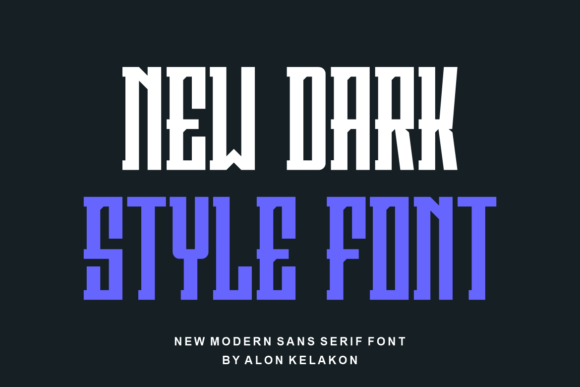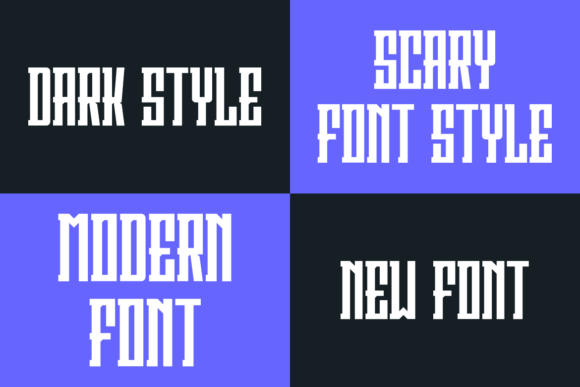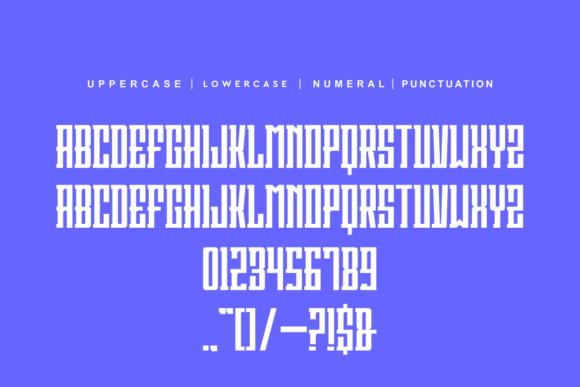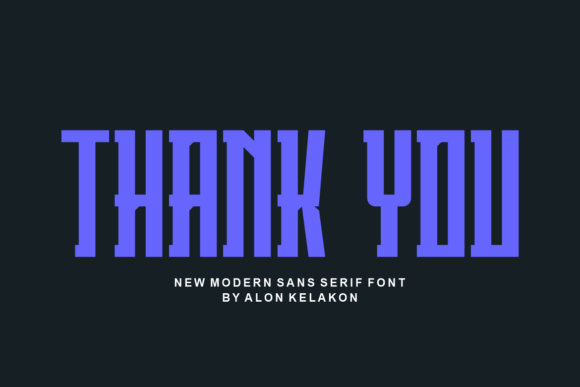
Unleash the Power of Darknes Shapekiner Font: Elevate Your Designs with Bold and Sharp Typography
In the world of design, typography plays a crucial role in conveying messages, expressing emotions, and creating visual identities. A font can make or break a design, and that’s why it’s essential to choose the right one. If you’re looking for a bold and sharp display font that can elevate your creations, look no further than Darknes Shapekiner. In this article, we’ll explore the features, benefits, and uses of Darknes Shapekiner Font, and why it’s a must-have for designers and crafters.
What is Darknes Shapekiner Font?
Darknes Shapekiner is a bold and sharp display font designed to make a statement. Its unique shape and sharp lines make it perfect for headlines, titles, and any other text that needs to grab attention. This font is versatile and can be used for various design projects, from posters and flyers to logos and branding materials.
Key Features of Darknes Shapekiner Font
- Bold and Sharp Design: Darknes Shapekiner Font boasts a bold and sharp design that cuts through the noise and demands attention.
- Versatility: This font is perfect for various design projects, including posters, flyers, logos, branding materials, and more.
- Easy to Read: Despite its bold design, Darknes Shapekiner Font is easy to read, making it perfect for headlines and titles.
- Unique Shape: The font’s unique shape and sharp lines set it apart from other display fonts.
Benefits of Using Darknes Shapekiner Font
So, why should you choose Darknes Shapekiner Font for your design projects? Here are some benefits:
- Elevate Your Designs: Darknes Shapekiner Font has the potential to elevate any creation, making it perfect for designers who want to take their designs to the next level.
- Save Time: With Darknes Shapekiner Font, you can create stunning designs in no time, thanks to its bold and sharp design.
- Stand Out: This font will help your designs stand out from the crowd, making it perfect for businesses and individuals who want to make a statement.
Who Can Benefit from Darknes Shapekiner Font?
Darknes Shapekiner Font is perfect for:
- Graphic Designers: Graphic designers can use this font to create stunning designs for their clients.
- Branding Experts: Branding experts can use Darknes Shapekiner Font to create memorable logos and branding materials.
- Crafters: Crafters can use this font to create beautiful crafts, such as handmade cards and invitations.
- Small Business Owners: Small business owners can use Darknes Shapekiner Font to create professional-looking marketing materials.